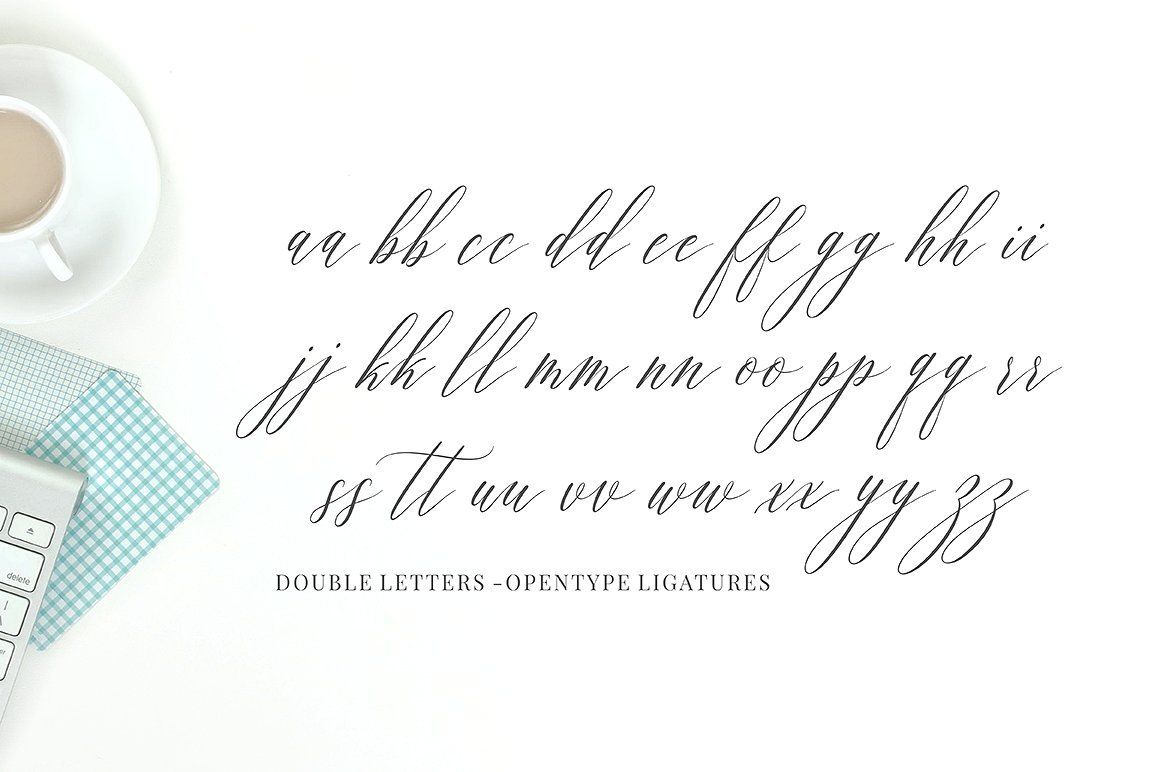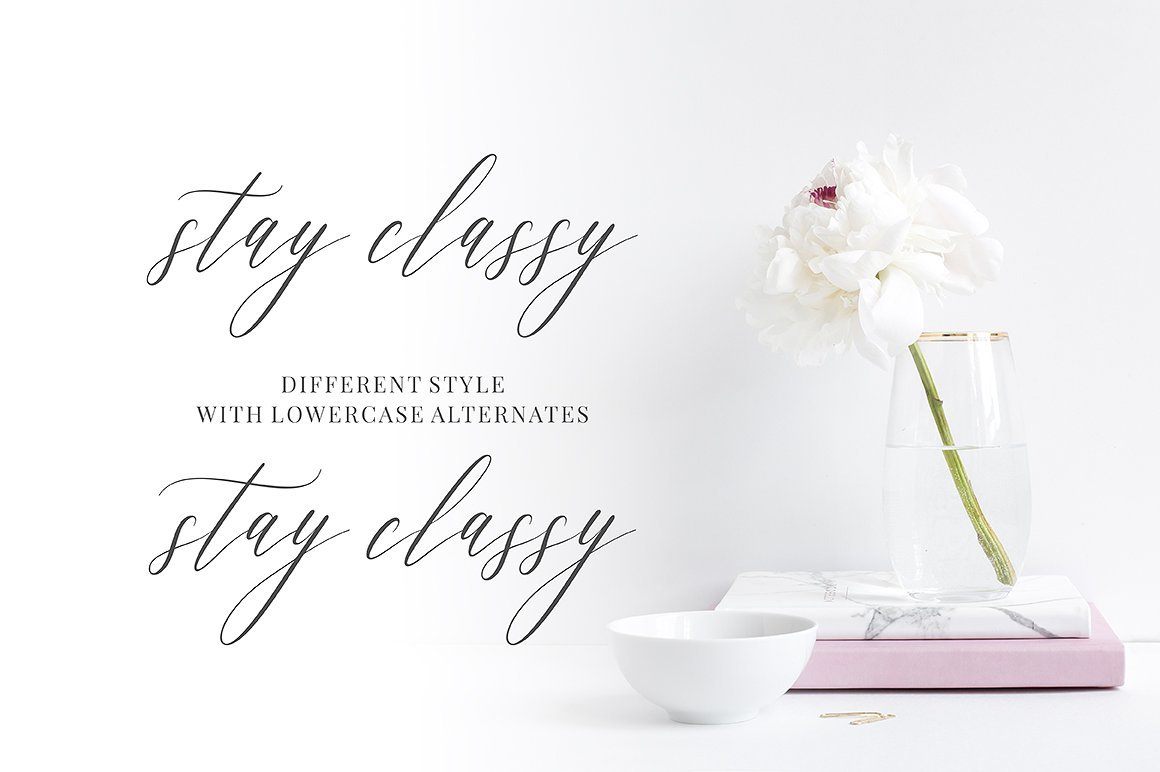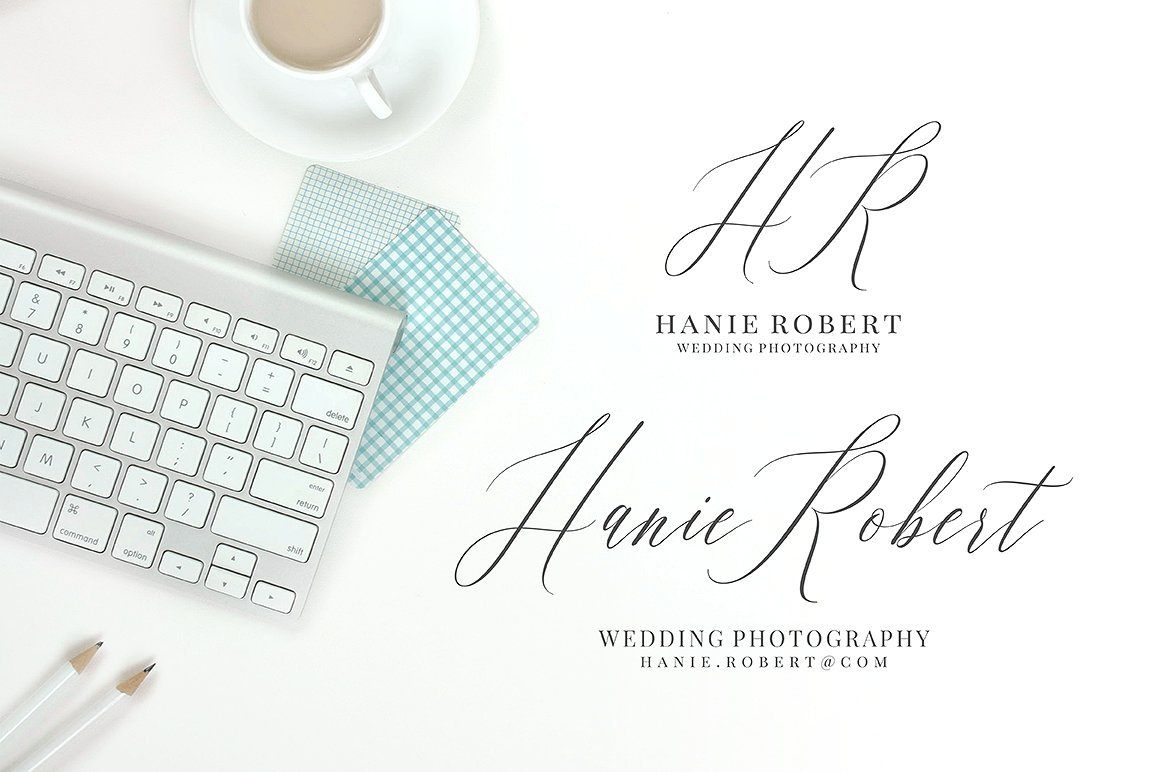
About Feelsmooth Script
Feelsmooth Script! A new modern calligraphy font that features a varying baseline, smooth line, classic and elegant touch. Feelsmooth Script features 350+ glyphs and 167 alternate characters. It comes with a handy set of opentype stylistic, use the beautiful ligatures, alternates and swashes. You need a program that supports OpenType features such as Adobe Illustrator CS, Adobe Photoshop CC, Adobe Indesign, Microsoft Word 2010. It is perfect for logo, greetings, branding, quotes, prints, invitations and crafting. All lowercase letters include alternates, beginning & end swashes, that makes the font look fabulous! Included in the pack: Feelsmooth Script (OTF/ TTF) View all glyphs: https://www.dropbox.com/s/olprwf5w0ehtlg1/Glyphs.jpg?dl=0 These are all coded with PUA Unicode. Mac users can use Font Book and Windows users can use Character Map to view and copy any of the extra characters to paste into your favourite text editor/app. If you have any questions or problems, please don’t hesitate to message me.